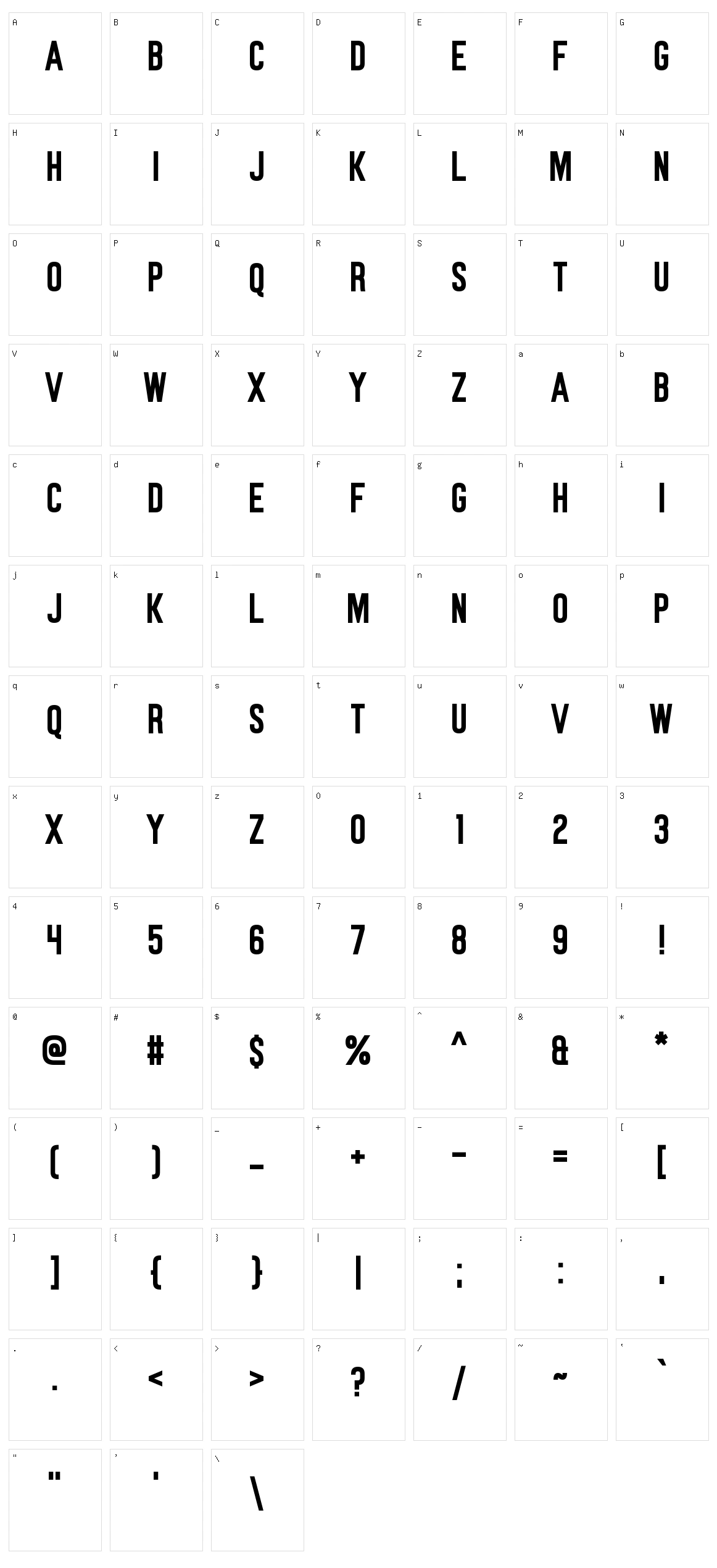
The free font Green King's Wood is carefully designed by Chequered Ink, showcasing a thoughtful balance of creativity and usability and falls under the Sans serif font style. When you download the ZIP file, it contains only 33.74 KB of font files, making it lightweight and quick to download. Please review the license details below to understand permitted usage and distribution rights. If license information is not available, we recommend using this font for personal projects only or contacting the author directly for commercial usage permissions.